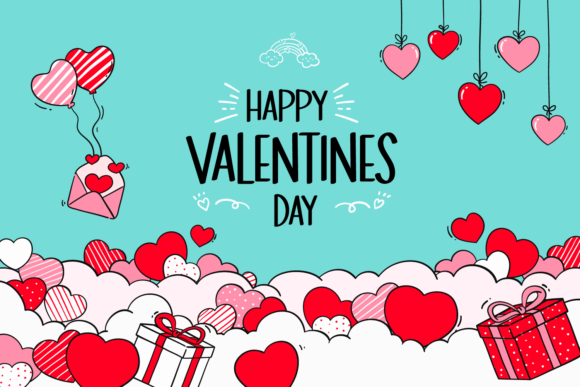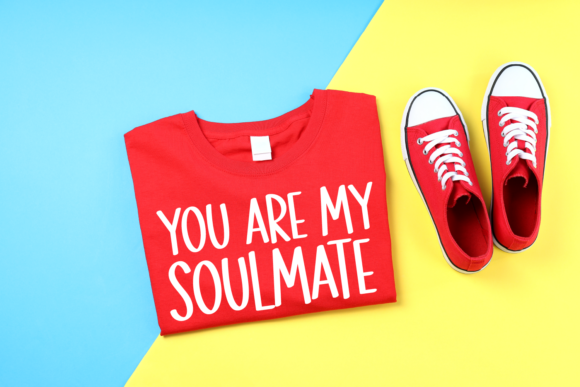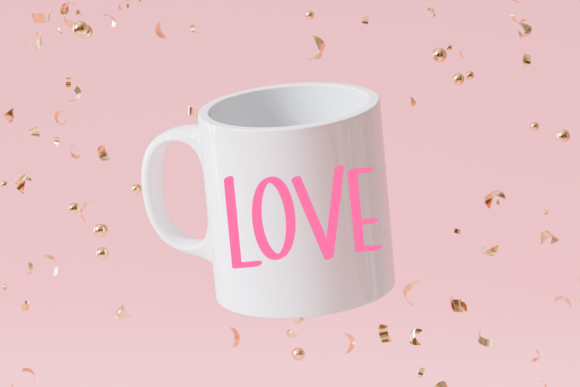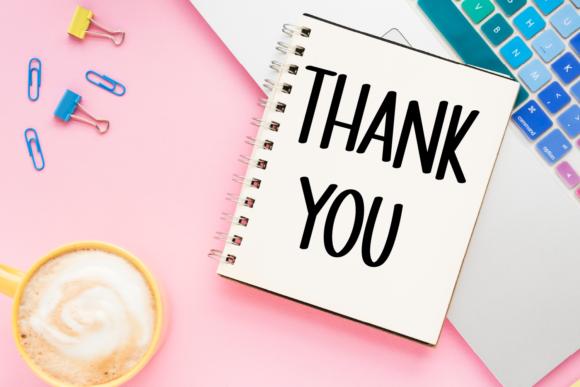
Introduction to Hello Valentines Font
Hello Valentines is a modern display font that is readable, smart and clean.
It is defined by neat curves and it is perfect for fashion branding or editorial designs Add it confidently to your projects, and you will love the results.
Key Features of Hello Valentines Font